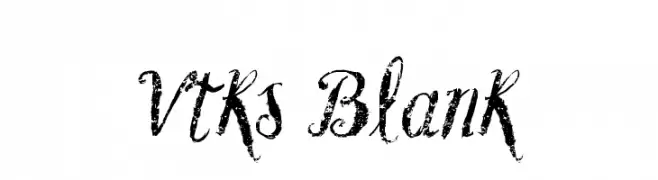
A bold, expressive font with a hand-painted, brush-like appearance.
A distressed, grunge script font with a bold, vintage style.
An elegant and sophisticated cursive script font with flowing curves and artistic flourishes.
A bold, decorative font with dynamic shapes and artistic swirls.
A rugged, hand-drawn font with bold, textured strokes and an artistic flair.
An expressive cursive font with fluid, artistic strokes.
A playful and artistic font with dynamic, hand-drawn letterforms.
A bold, decorative font with vintage flair and elegant flourishes.
A dynamic, expressive handwritten font with fluid strokes and varying thickness.
A bold, textured font with a hand-drawn, artistic style.